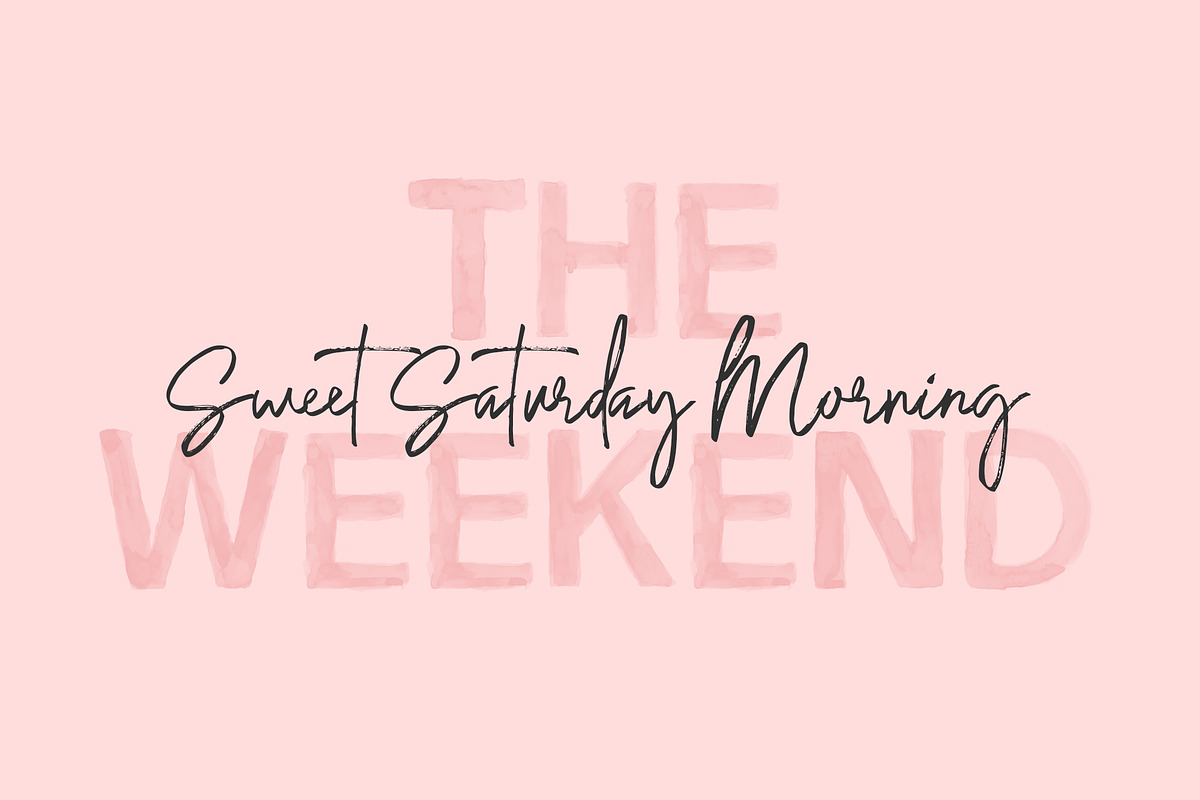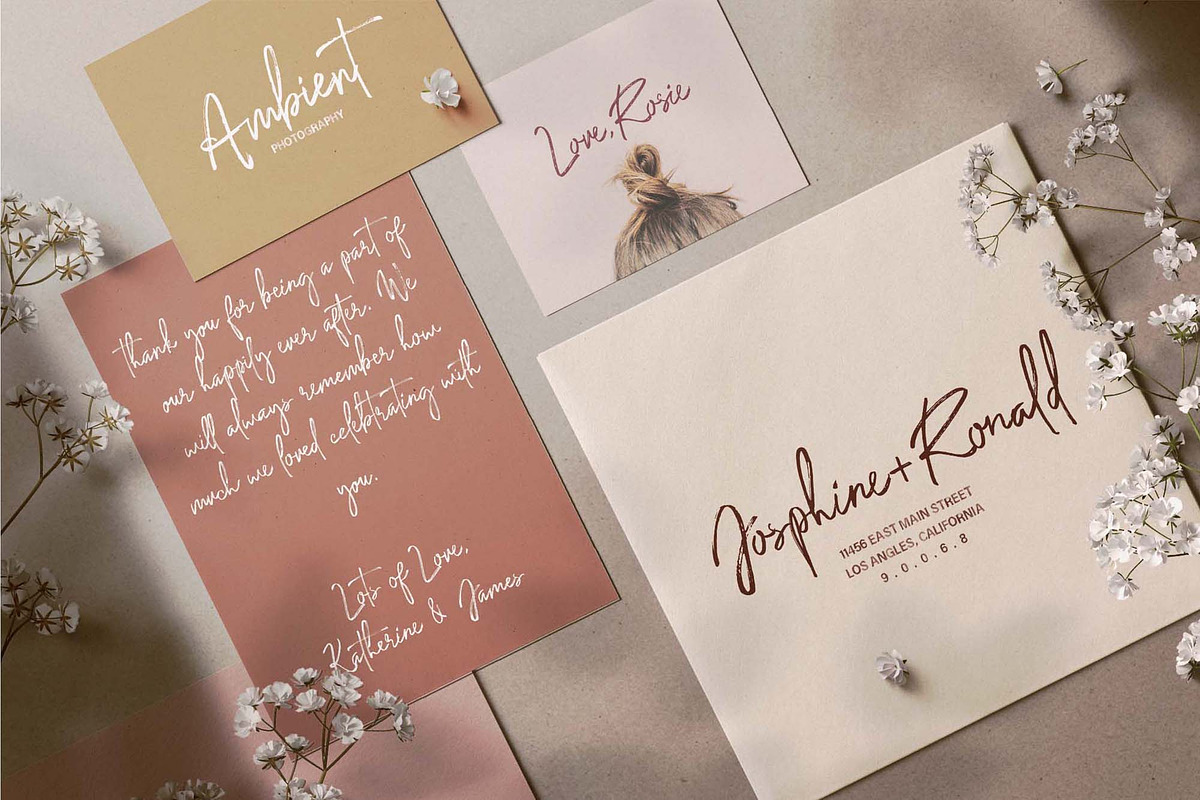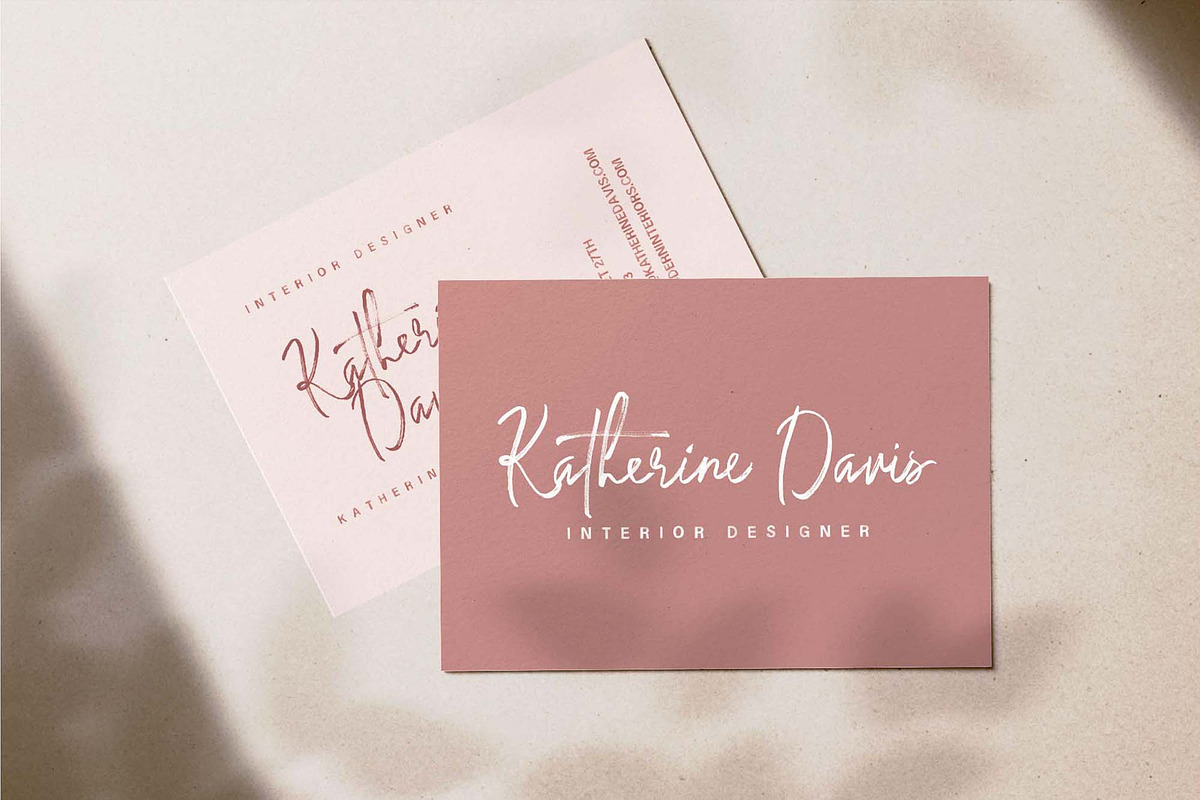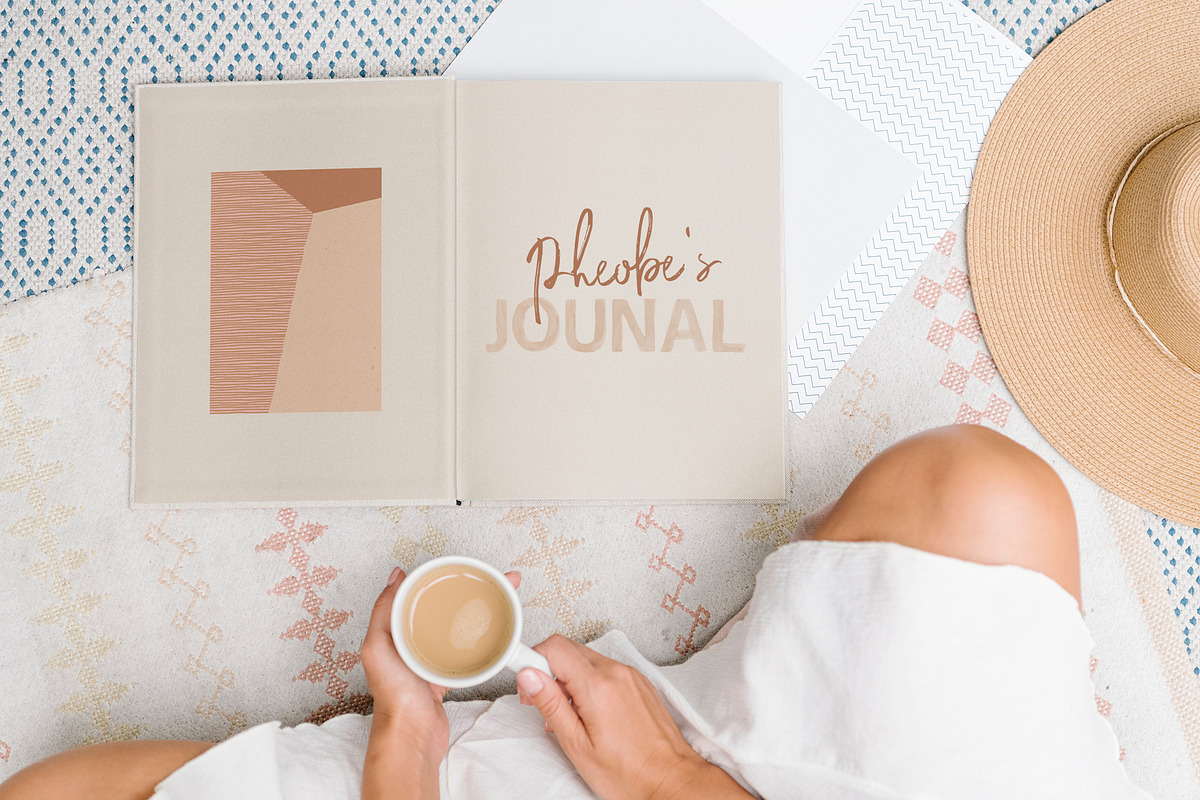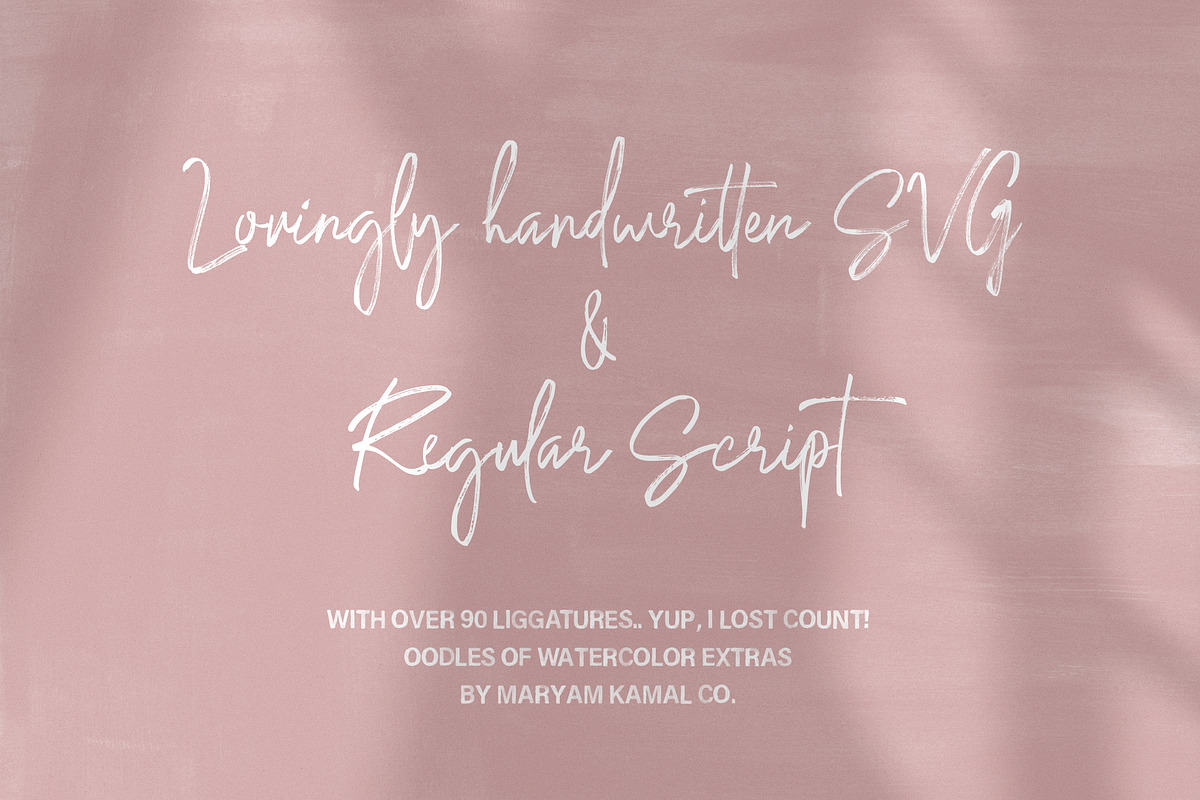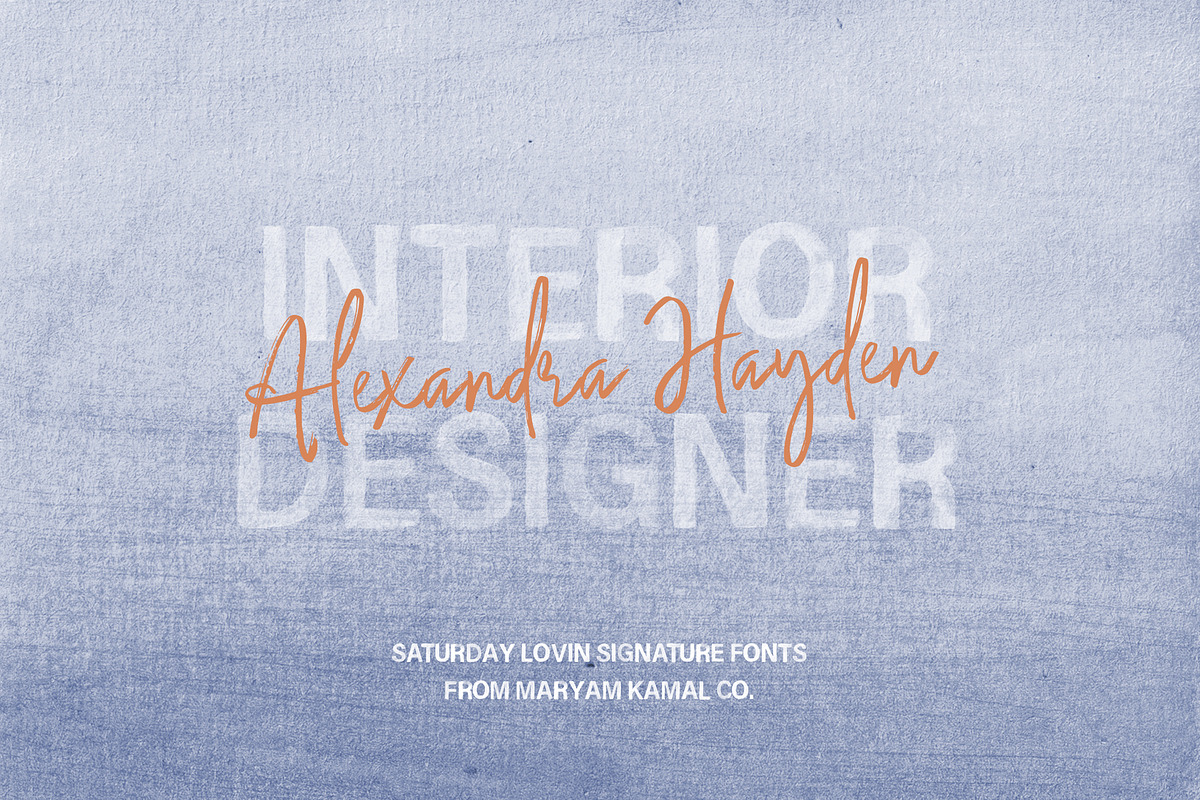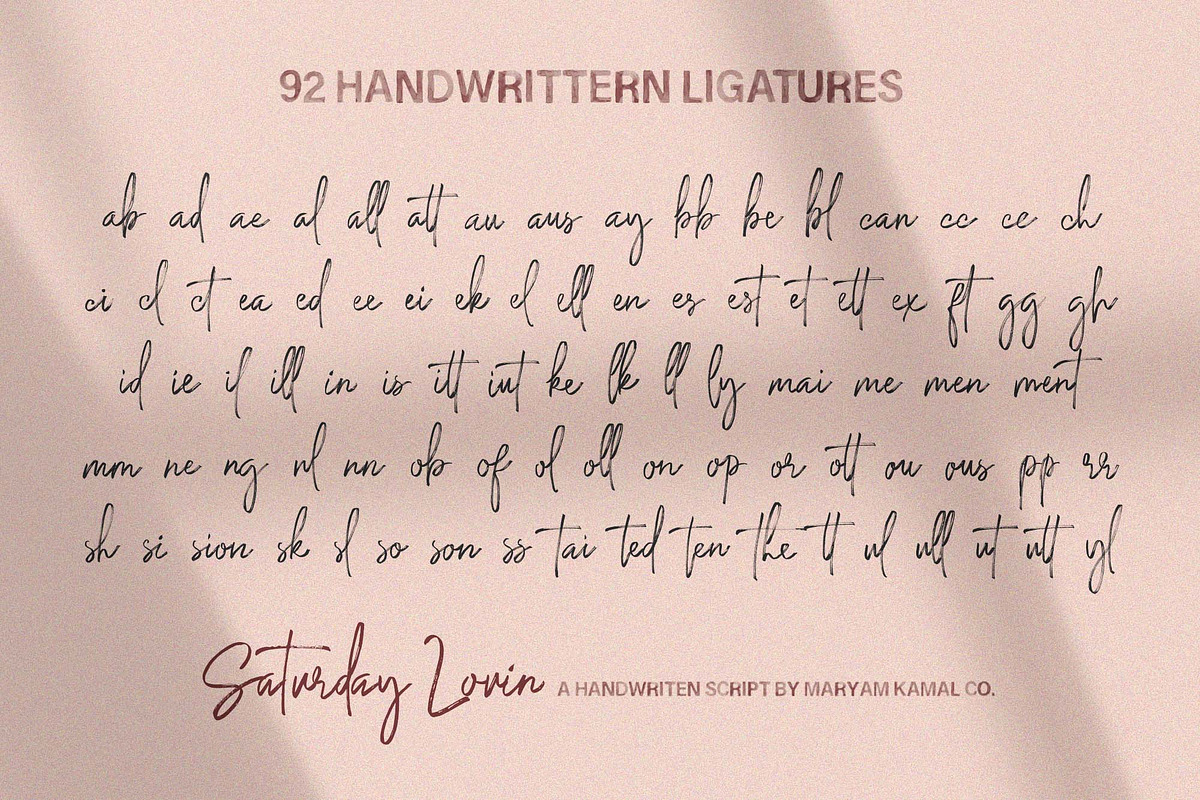
Saturday Loving Signature Font
Happy Saturday loves! It only makes sense to introduce the all-new Saturday Lovin Font collection on a Saturday morning 🙂 A casual and stylish handwritten script available in SVG and Regular. Inspired by relaxed weekend vibes, I hope you are all having an amazing weekend!
The Saturday Lovin Collection was designed to look as close to a natural handwritten script as possible by including over 90 ligatures, With built-in Opentype features, this font comes to life as if you are writing it yourself!